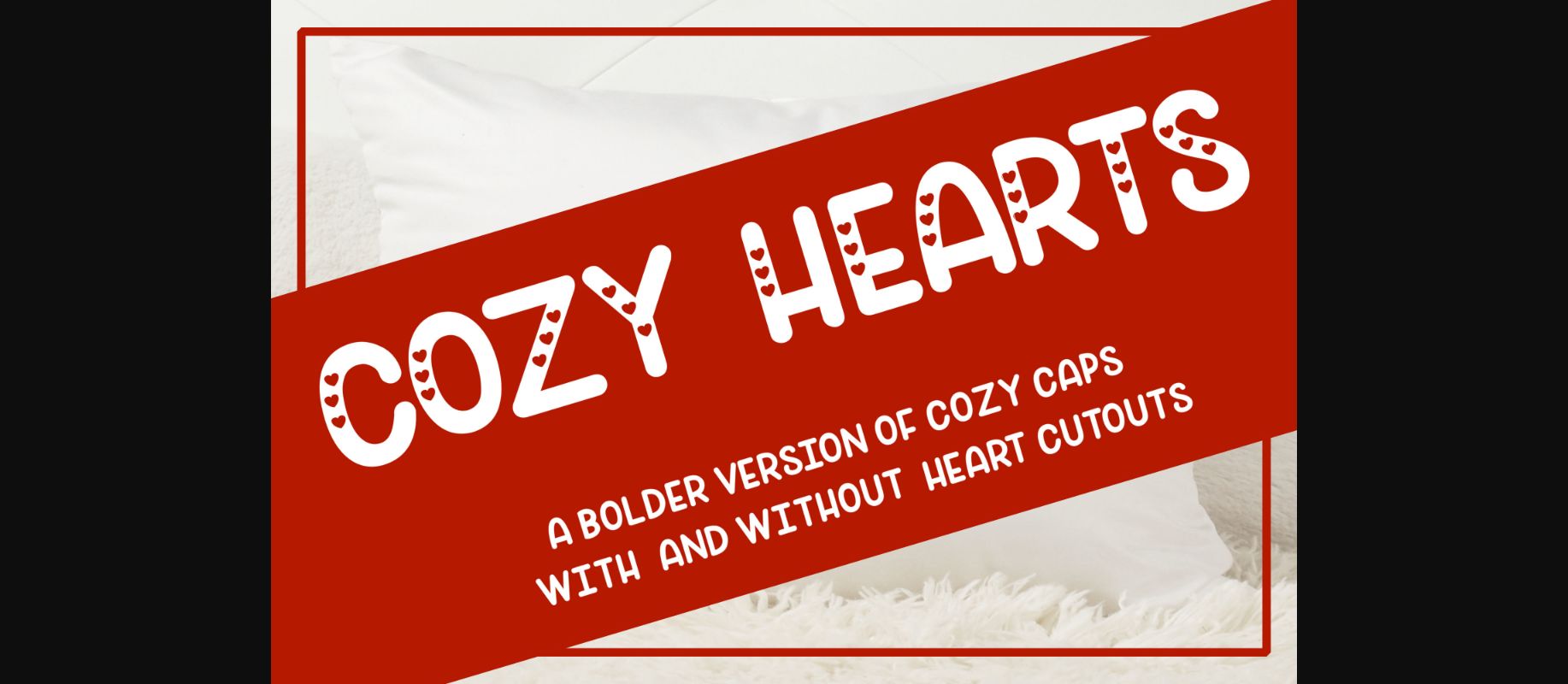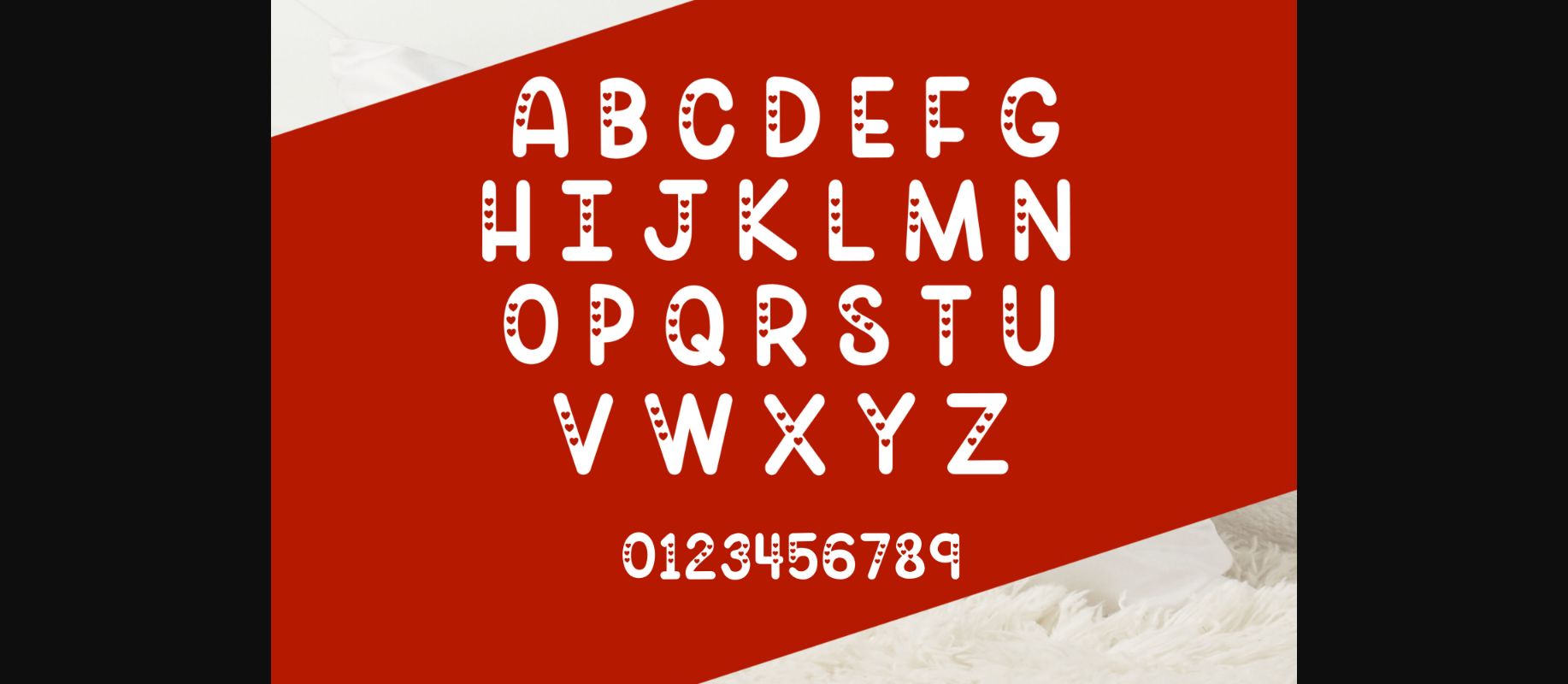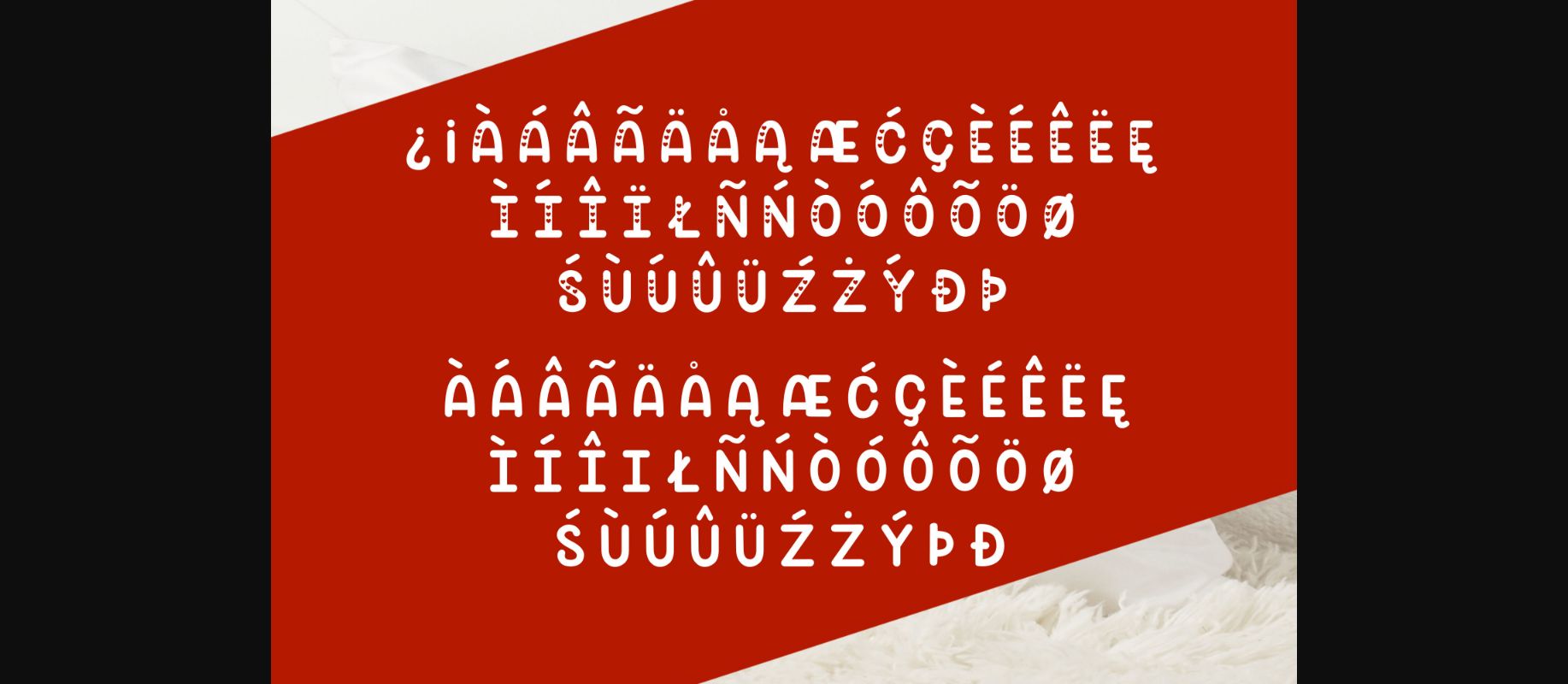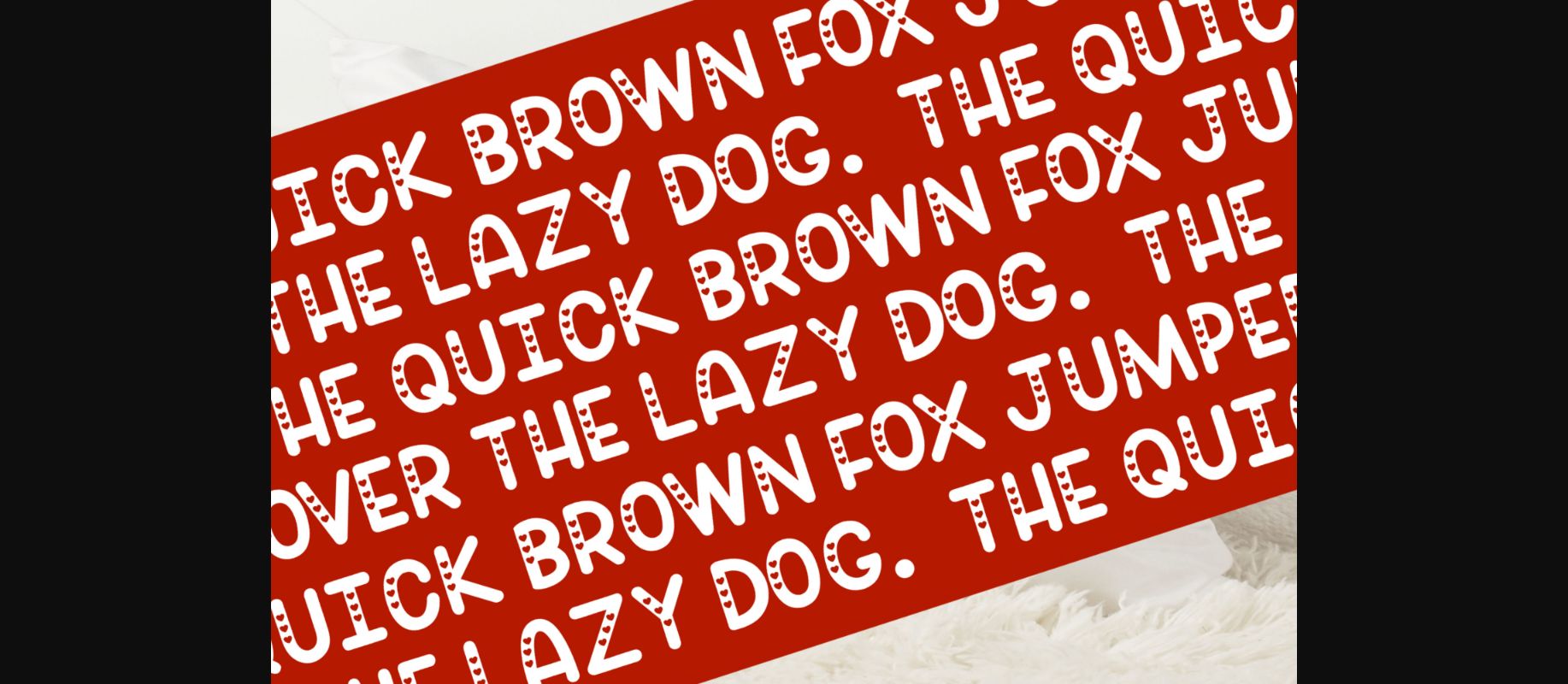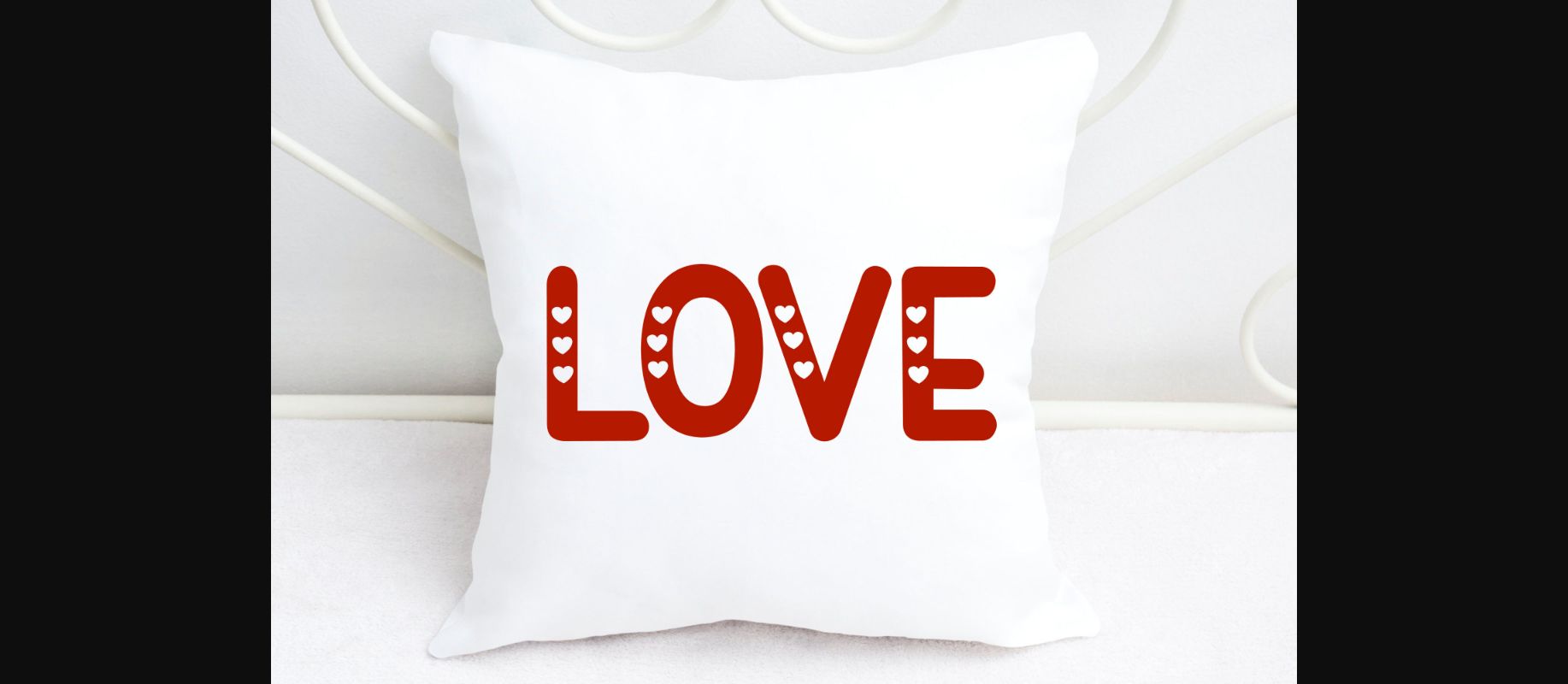
About Cozy Hearts Font
Cozy Hearts is a bolder version of my popular Cozy Caps font (a few modifications were made) with heart cutouts. It is an all caps font made up of 26 capital letters (heart cutouts), 26 capital letters (solid), numbers 0-9 (heart cutouts), punctuation, and accented characters.
Cozy Hearts is great for cards, invitations, scrapbooking, SVG design, and more!